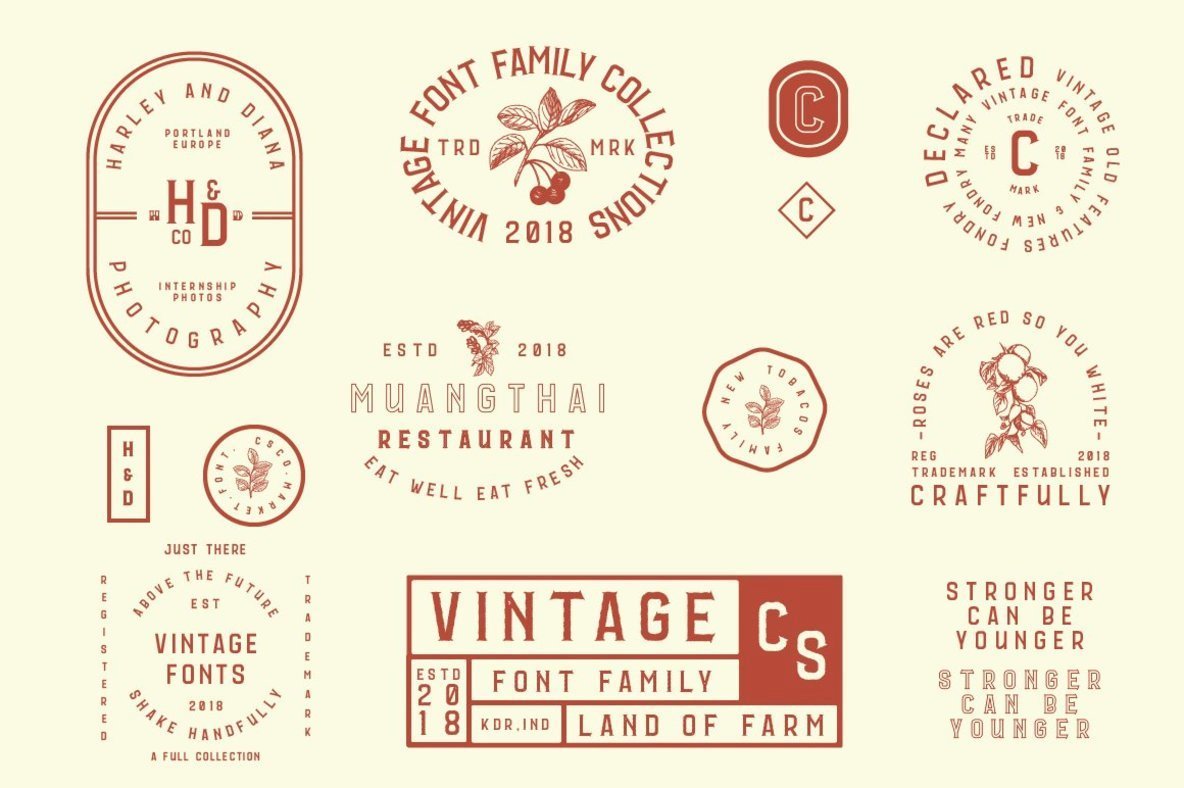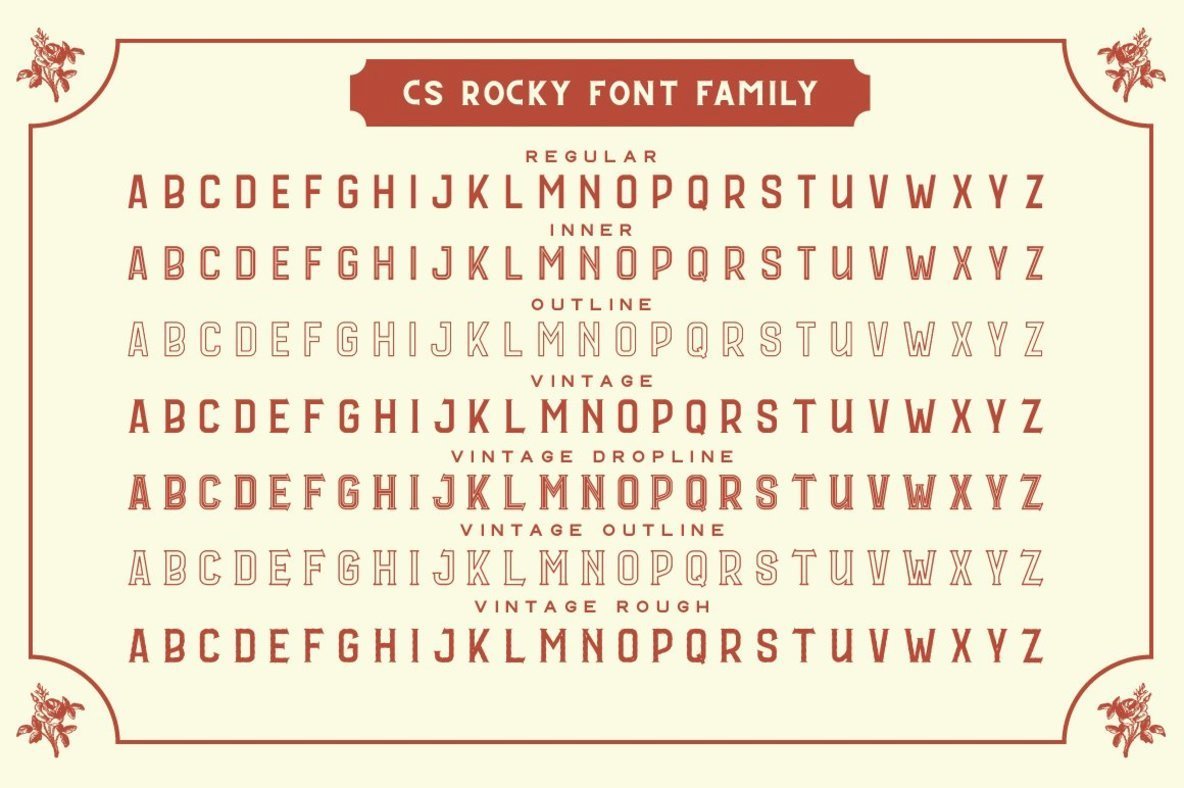
CS Rocky Font
CS Rocky offers designers a dynamic palette with its seven distinct styles, each serving as a robust foundation for a wide array of creative ventures. From print materials to comprehensive brand identities, CS Rocky's styles present a compelling choice. Whether you're embarking on a greeting card endeavor, package design, or a vibrant vintage project, the CS Rocky collection empowers your artistry with elegance and trendiness. The included extras—a selection of graphic design sets—complement and expand design possibilities, ensuring your projects not only meet but exceed visual expectations. Unleash the full potential of CS Rocky without the need for specialized software, enhancing your creative projects effortlessly.CS Rocky: Versatile Fonts for Bold Design
Immerse yourself in the world of CS Rocky and let your creativity thrive.